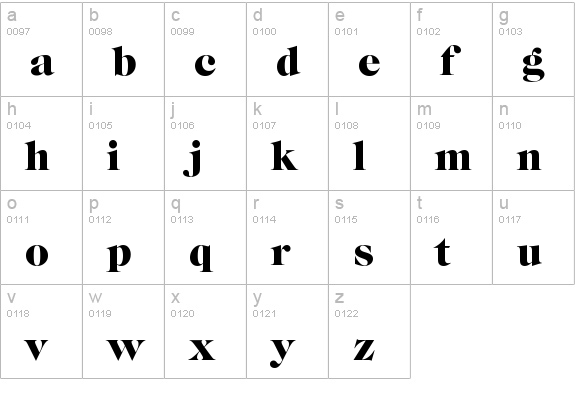
CaslonGraD Font Details
CaslonGraD is a stunning serif font that exudes elegance and sophistication. With its classic design and graceful curves, this typeface is perfect for adding a touch of timeless style to any project. The delicate serifs and flowing lines of CaslonGraD make it an ideal choice for everything from invitations to book covers. What sets CaslonGraD apart is not only its beauty, but also its versatility. Whether you are looking to create a vintage-inspired design or a modern layout with a touch of nostalgia, this font is sure to impress. Its readability and charm make it a popular choice for designers and typographers alike. And the best part? CaslonGraD is completely free to download at FontsMarket.com. So why wait? Add this exquisite font to your collection today and elevate your designs to new heights with the timeless beauty of CaslonGraD.